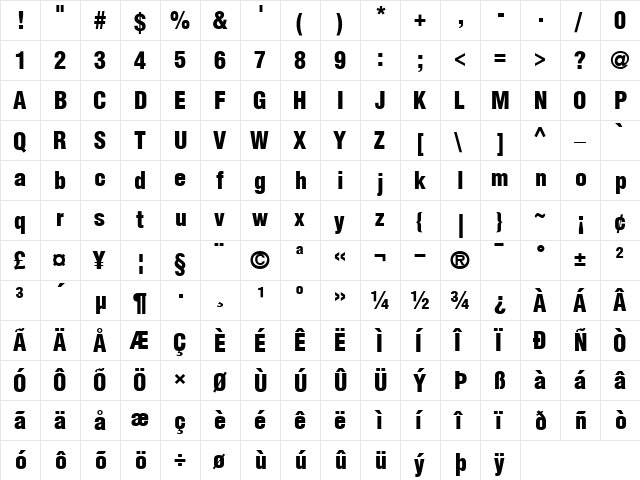
Helvetica-CondensedBlack Black Font Preview
Helvetica-CondensedBlack Black
Helvetica-CondensedBlack Black Font Details
Design Context for Helvetica-CondensedBlack Typeface
Helvetica-CondensedBlack takes a measured approach to typography — its balanced proportions and neutral character make it a reliable workhorse for both digital and print work. The condensed width makes it efficient for tight spaces without sacrificing legibility.